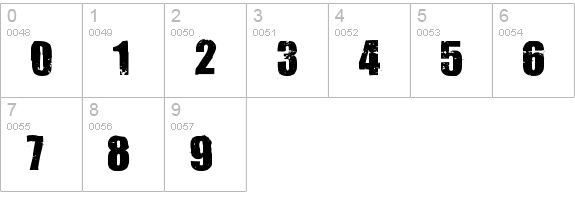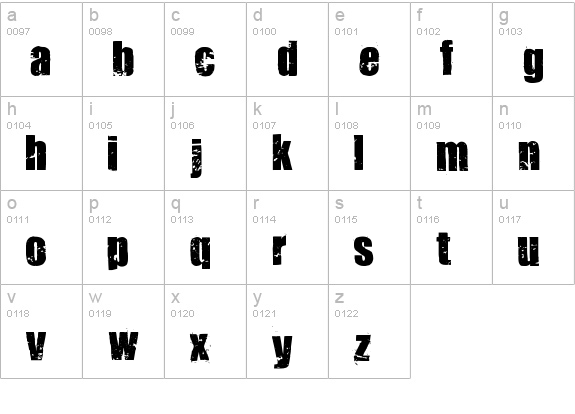
321impact font is a bold and eye-catching typeface that commands attention with its strong, impactful presence. With its thick strokes and sharp edges, this font exudes a sense of power and authority, making it perfect for headlines, posters, and other designs that require a bold statement. The font's unique design sets it apart from other impact fonts, giving it a modern and edgy look that is sure to make your message stand out. What's even better is that 321impact font is completely free to download at FontsMarket.com. Yes, you read that right - you can get your hands on this striking font without spending a dime. So why wait? Add a touch of impact to your designs today with 321impact font, the perfect choice for making a bold statement.